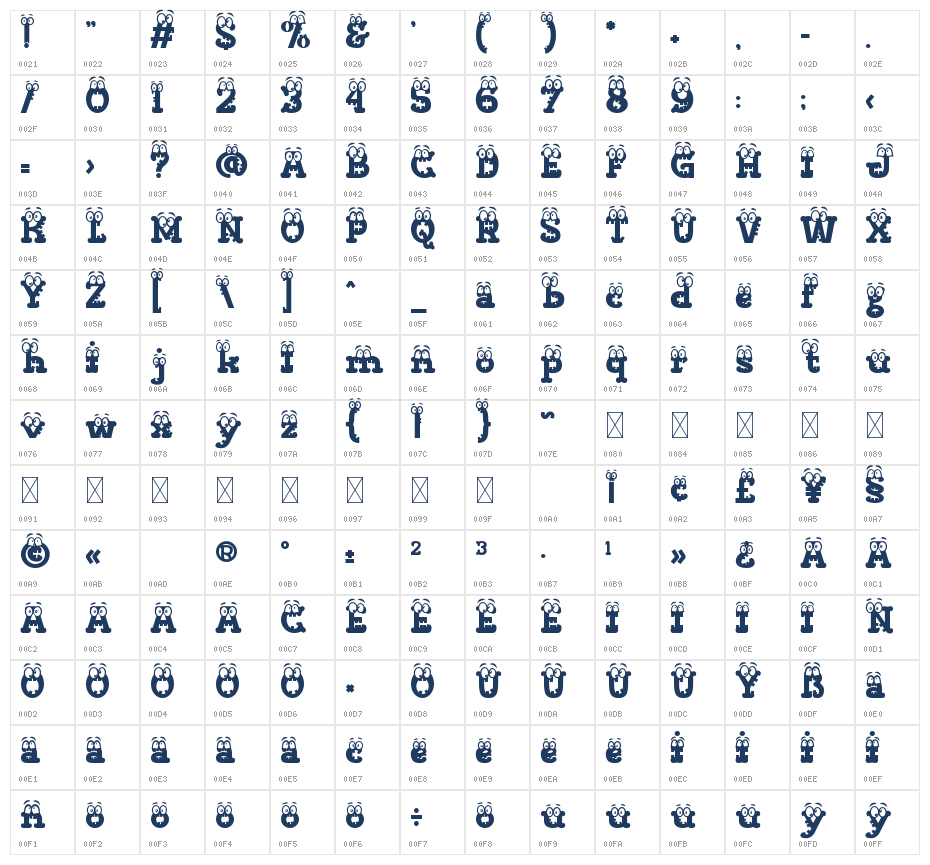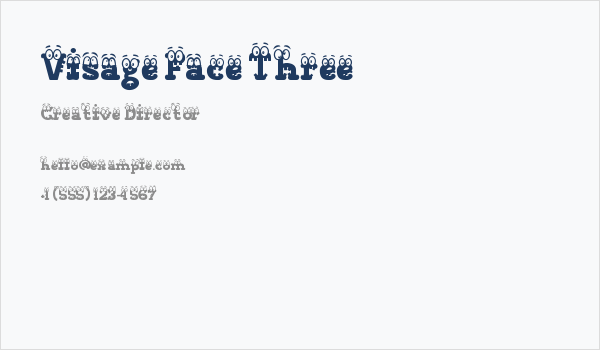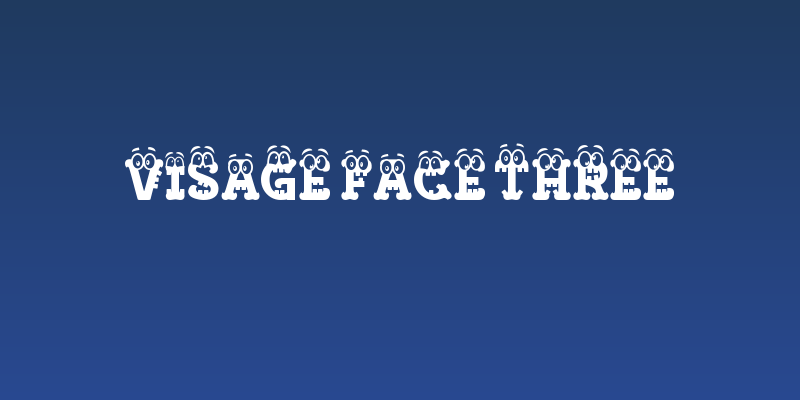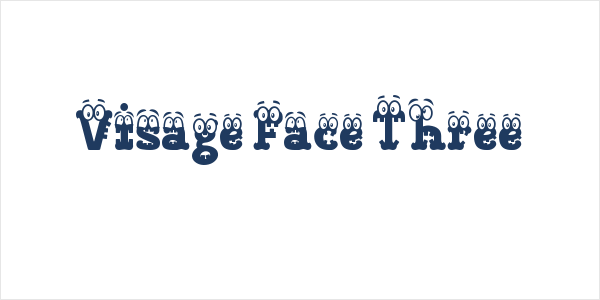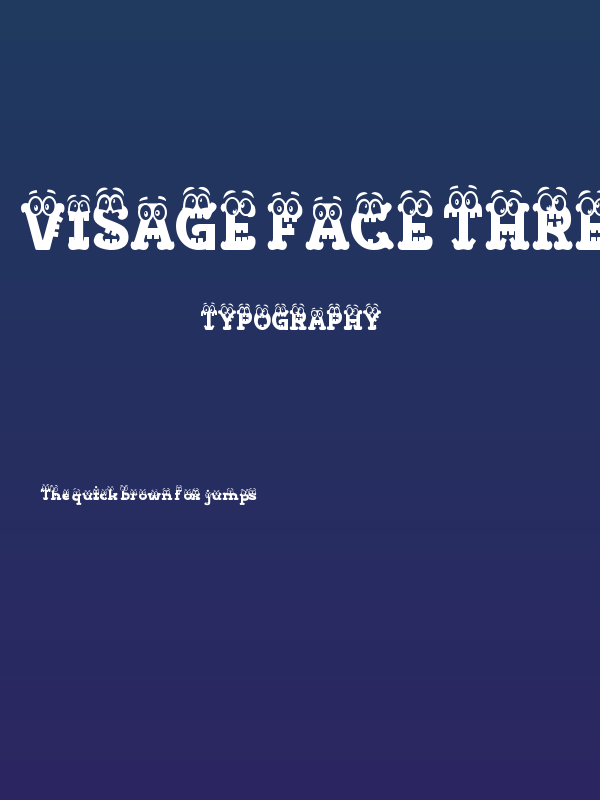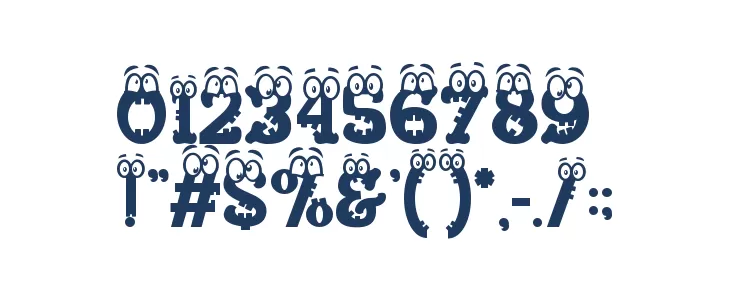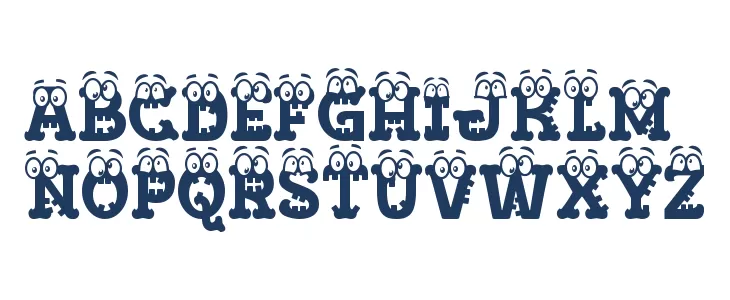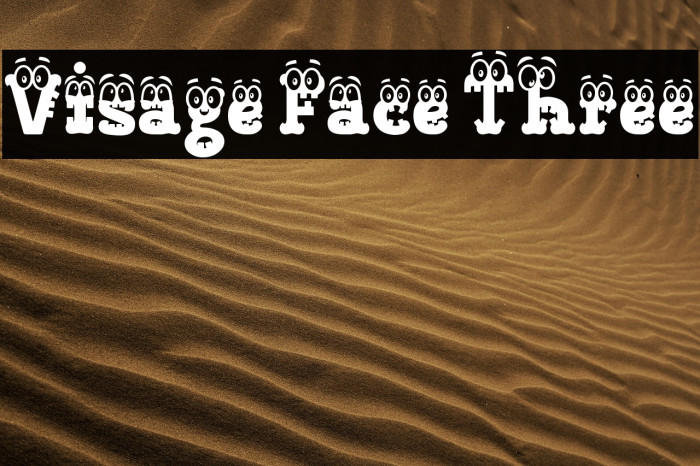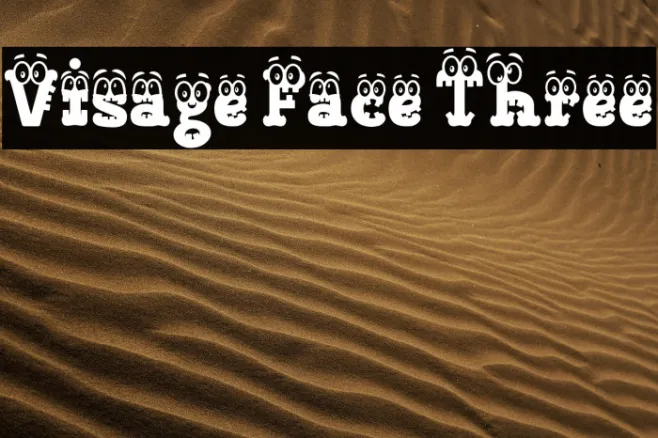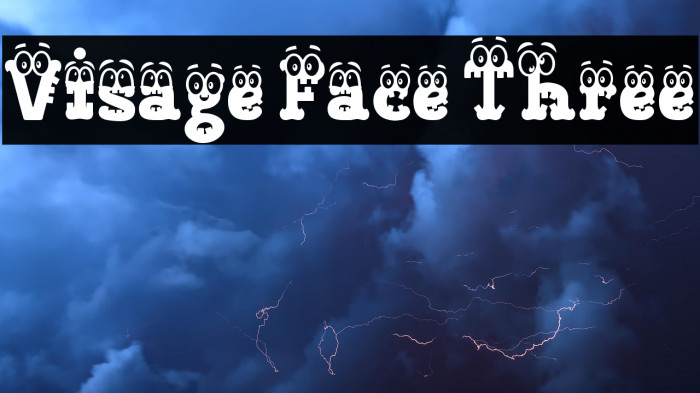
Visage Face Three Font
A playful, cartoonish font with expressive, googly eyes on each character, giving it a whimsical and fun appearance.
| Overall Style | Whimsical, Playful, Cartoonish |
| Use Case | Headlines, Children's content, Logos, Posters |